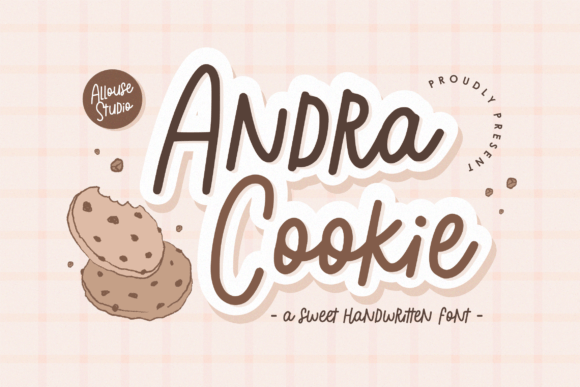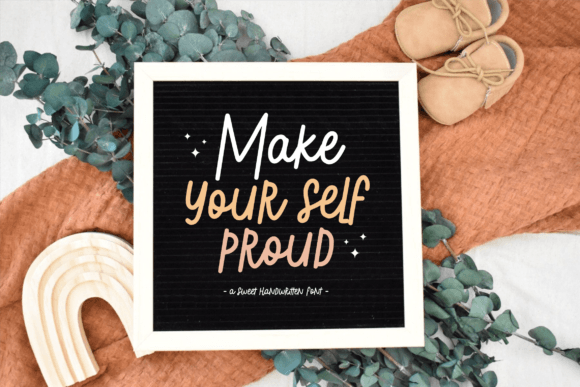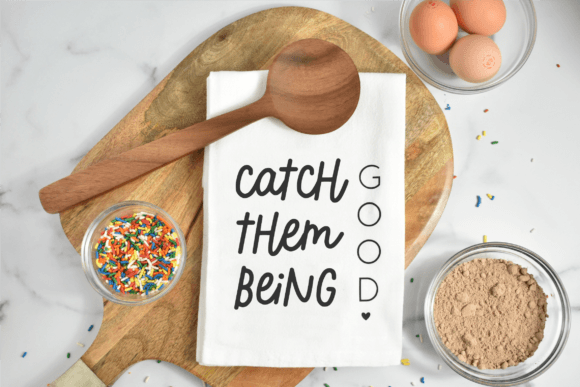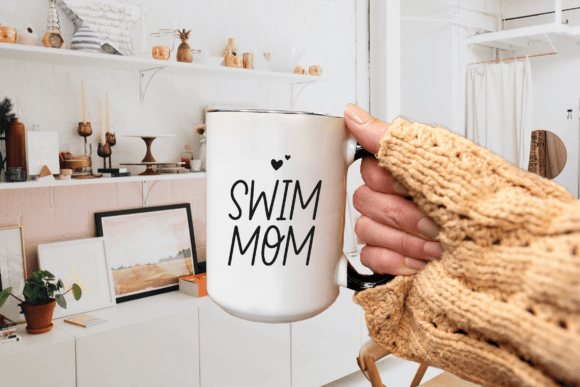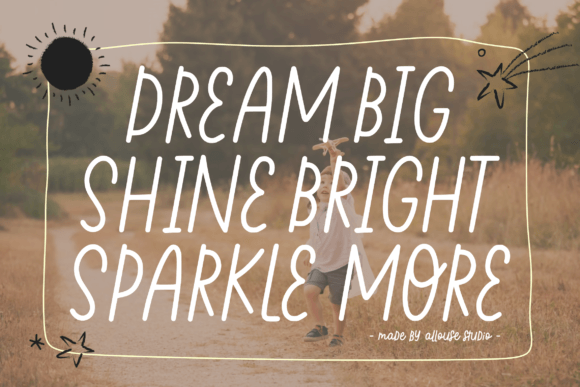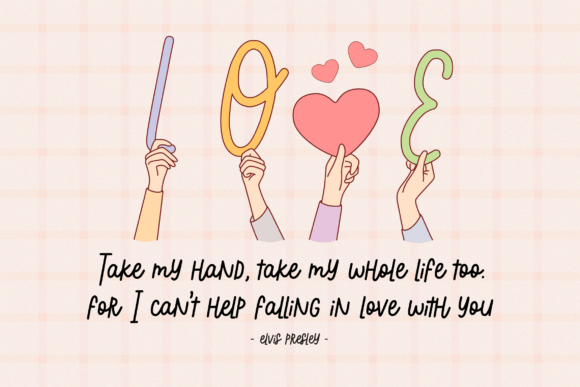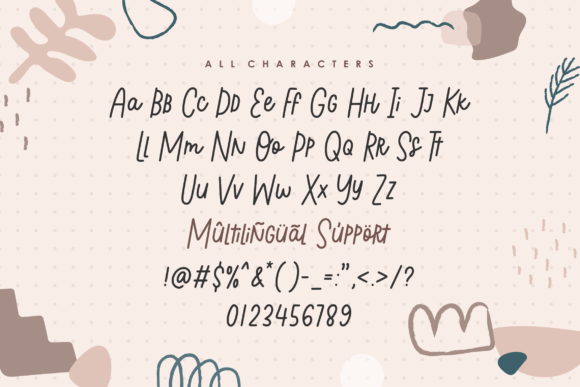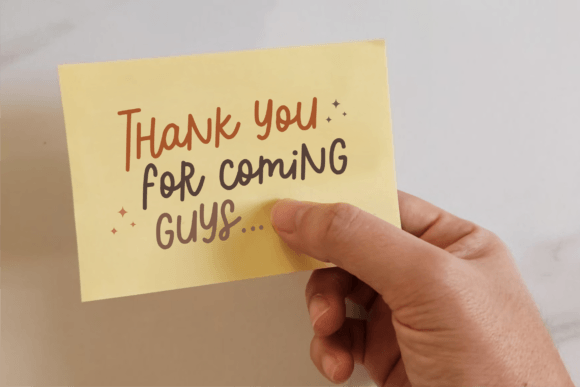
Andra Cookie Font
About Andra Cookie Font
Andra Cookie A Sweet Handwritten Font
Andra Cookie is perfect for product packaging, branding project, magazines, social media, weddings, or just used to express words above the background.